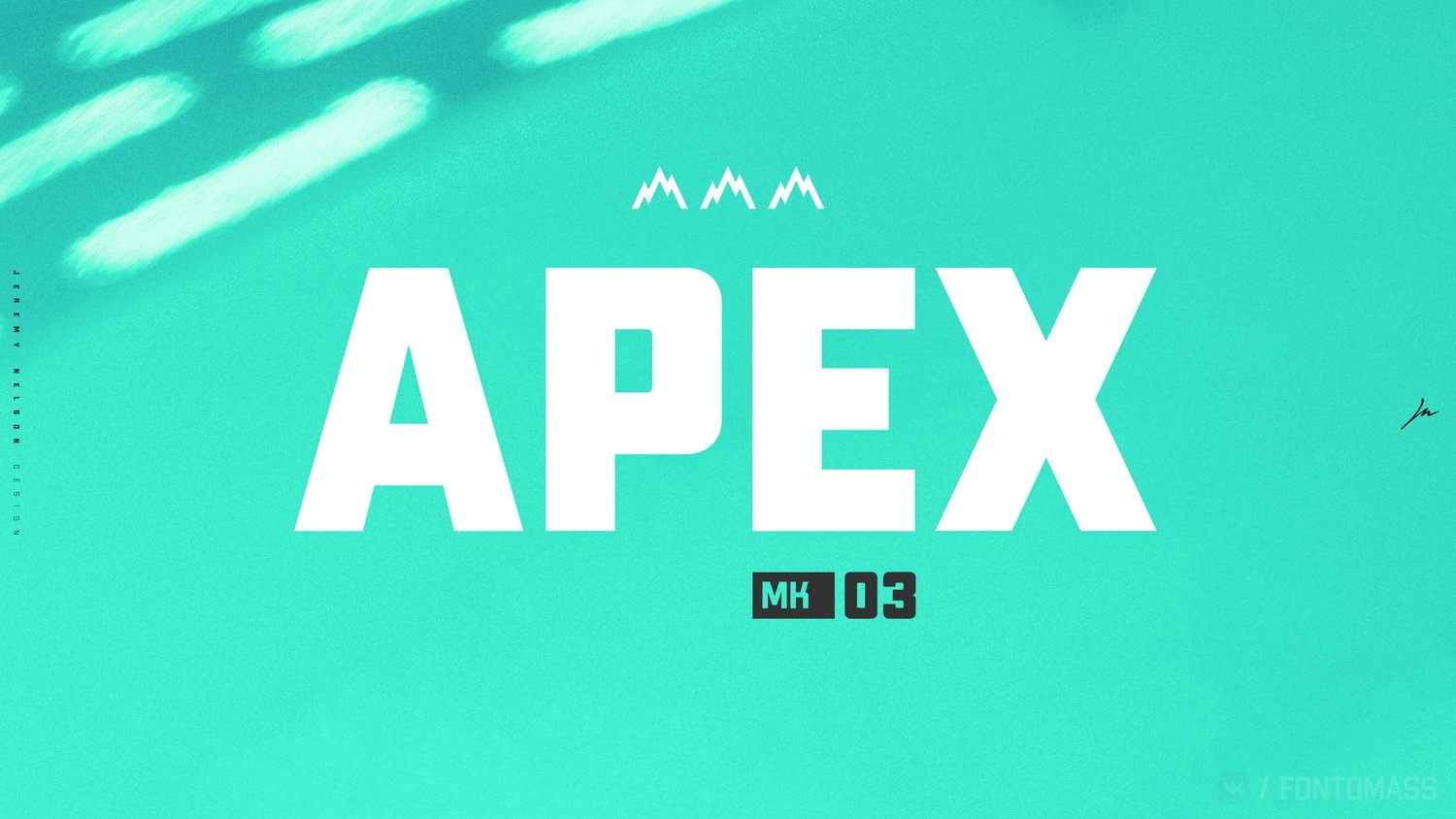
Apex Mk3 Font
Apex Mk3 Font is perfect for tech startup branding, futuristic gaming interfaces, advanced engineering presentations, cutting-edge automotive design, high-tech product launches, innovative software applications, modern aerospace communications, precision manufacturing materials, advanced robotics branding, and next-generation digital platforms.
What makes Apex Mk3 Font so exciting is its advanced engineering aesthetics that perfectly capture the precision and innovation of next-generation technology while maintaining exceptional functionality and readability. This sophisticated typeface embodies technological evolution and engineering excellence, creating typography that communicates cutting-edge innovation and professional authority.
The Apex Mk3 Font family includes light, regular, medium, bold, and black weights, complete with advanced design features, technological styling options, and engineering-inspired elements that provide designers with comprehensive tools for creating futuristic and memorable typography that defines technological superiority.
The precisely crafted letterforms of Apex Mk3 Font showcase technological sophistication with engineering character that creates instant recognition of innovation and advanced capability. Each character displays meticulous attention to maintaining the technological precision that defines next-generation design while ensuring superior readability and professional versatility. The font's advanced construction and technological spacing contribute to its futuristic appearance and engineering appeal.
Technology companies and innovation-focused organizations consistently choose Apex Mk3 Font for projects requiring cutting-edge aesthetics and technological authority. The comprehensive character set includes uppercase and lowercase letters, numerals, extensive punctuation, international accents, and technological elements that provide complete support for advanced branding applications and engineering design compositions.
The technological excellence of Apex Mk3 Font ensures exceptional performance across both traditional print and modern digital platforms. Whether developing advanced technology brand identities, creating futuristic marketing campaigns, or designing cutting-edge interface materials, this remarkable typeface delivers consistent innovation that resonates with audiences seeking technological excellence and engineering superiority.